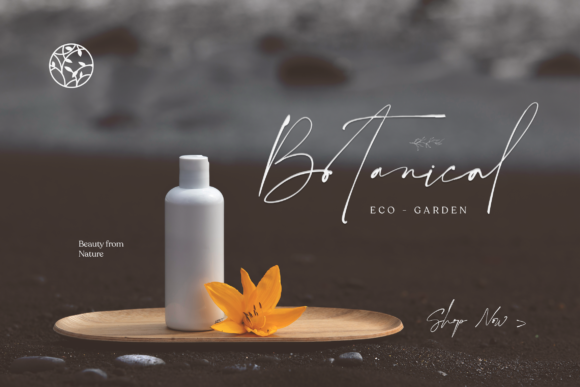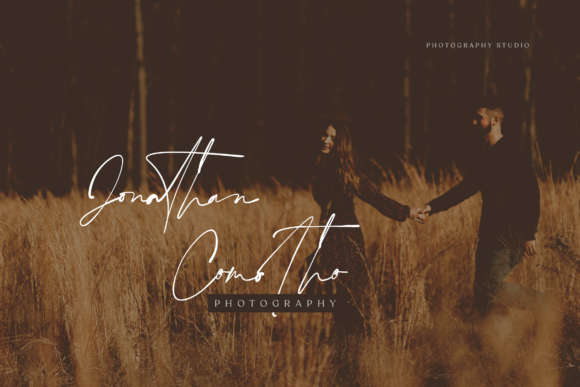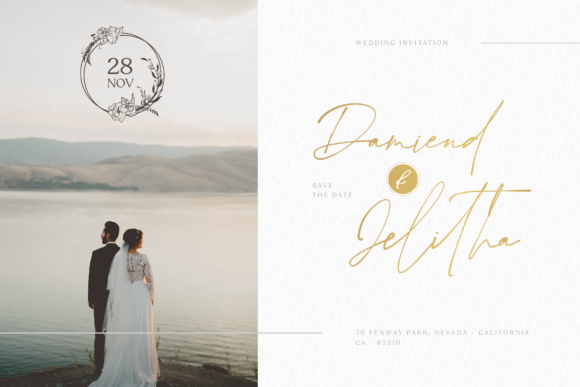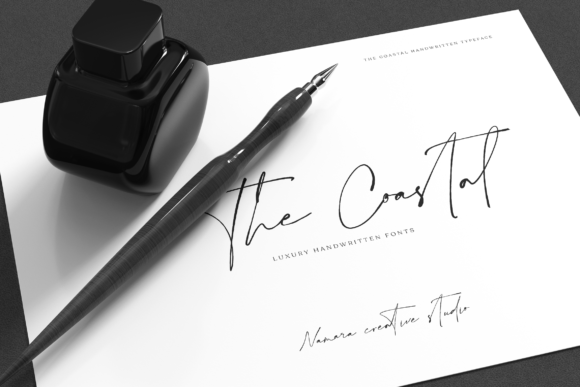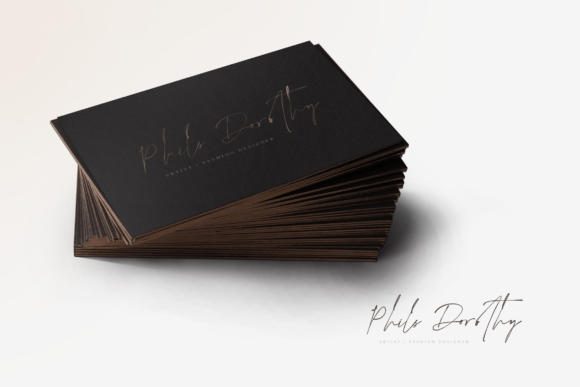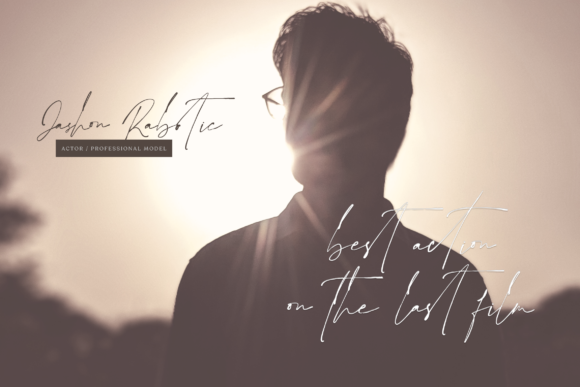
The Coastal Font
About The Coastal Font
“The Coastal” emerges as an exquisitely distinct, delicate, and timeless handwritten font that possesses an undeniable allure. This font’s beauty is both captivating and enduring, making it a remarkable choice for a plethora of designs, including wedding invitations, thank you cards, quotes, greeting cards, logos, business cards, and any creation that benefits from a handwritten touch.
What sets “The Coastal” apart is its ability to seamlessly meld uniqueness, fragility, and timelessness. Each letter is crafted with meticulous attention, reflecting the artistry of handcrafted calligraphy. With every stroke, “The Coastal” weaves a narrative of sophistication and everlasting charm that transcends fleeting trends.
Imagine the transformative influence of “The Coastal” on a variety of designs—a romantic wedding invitation graced by the font’s elegant script, setting the tone for a magical celebration. Picture the font adorning a boutique’s logo, infusing the brand with a sense of elegance and authenticity. The font’s versatility seamlessly adapts to a multitude of contexts, enriching your projects with an element of enduring artistry.
The innate allure of “The Coastal” is magnetic, akin to the soothing sound of waves against the shore. Its letters flow gracefully, bestowing a sense of grandeur that enhances the overall design. The font exudes an aura of timeless beauty, encouraging creators to embark on a journey of artistic exploration.
Designers and enthusiasts alike will undoubtedly be entranced by the font’s distinctive charm. Its adaptability transcends conventions, rendering it an essential tool for an array of projects. Beyond being a mere font, “The Coastal” transforms into a channel for self-expression, enabling creators to infuse their work with an essence of timeless elegance.
In essence, “The Coastal” stands as a testament to the artistic depth that typography can encompass. Its distinct, delicate, and timeless charm invites you to delve into the realm of design, transforming your ideas into tangible creations that embody enduring beauty. As you navigate the realms of creativity, let “The Coastal” be your guiding companion, leading you to craft designs that epitomize elegance and leave a lasting imprint on every canvas, all while embracing the enriching tapestry of your creative imagination.